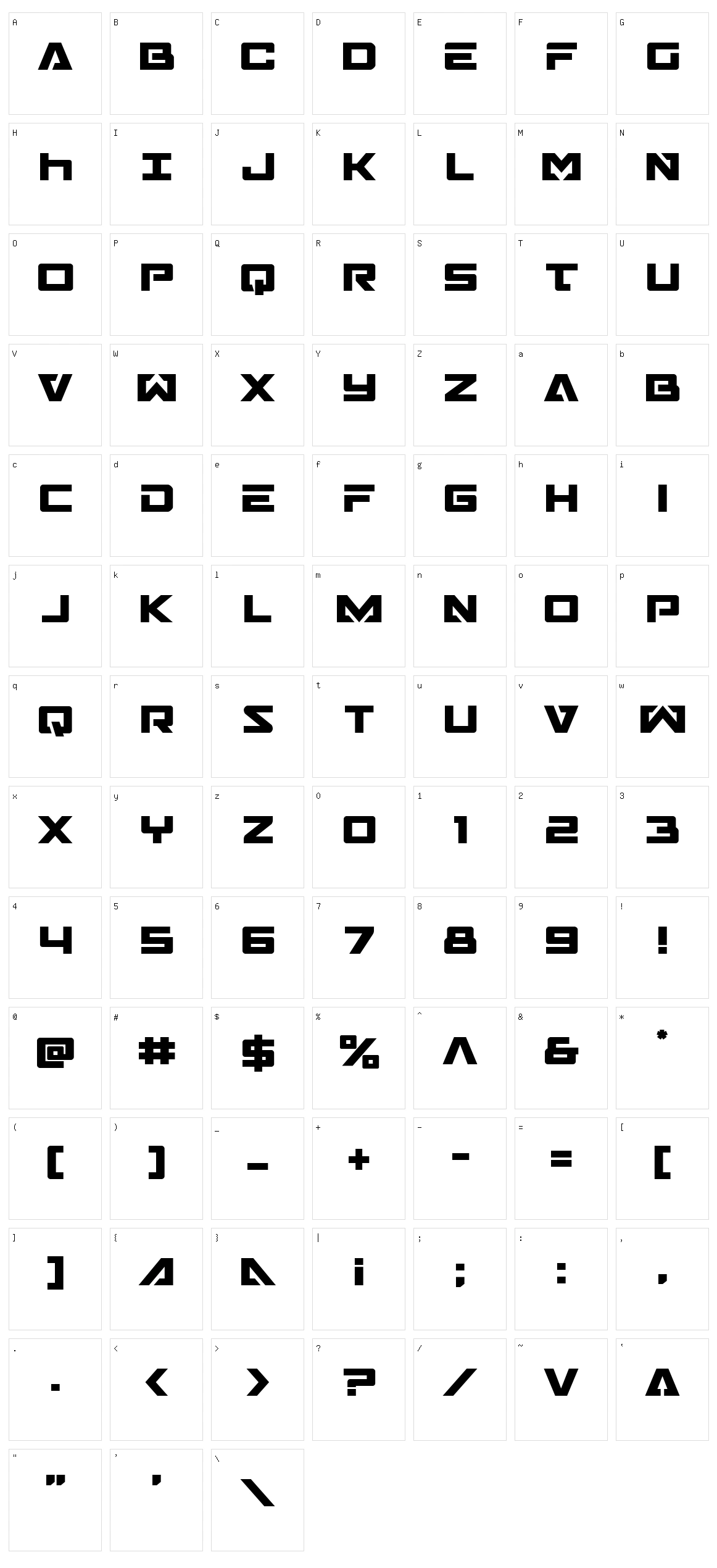
Trans-America
This font comes with the following 25 versions: Regular, Italic, Semi-Italic, Condensed, Condensed Italic, Expanded, Expanded Italic, Bold, Bold Italic, Outline, Outline Italic, 3D, 3D Italic, Halftone, Halftone Italic, Gradient, Gradient Italic, Laser, Laser Italic, Chrome, Chrome Italic, Platinum, Platinum Italic, Leftalic and Semi-Leftalic.